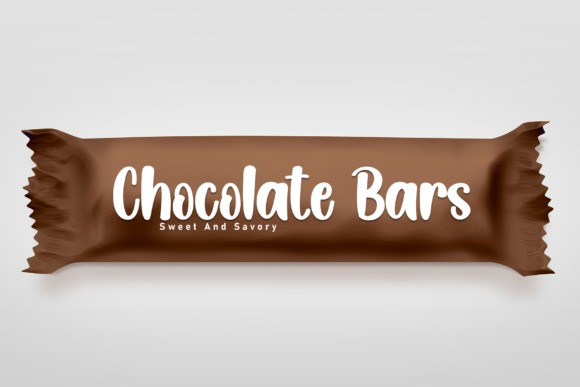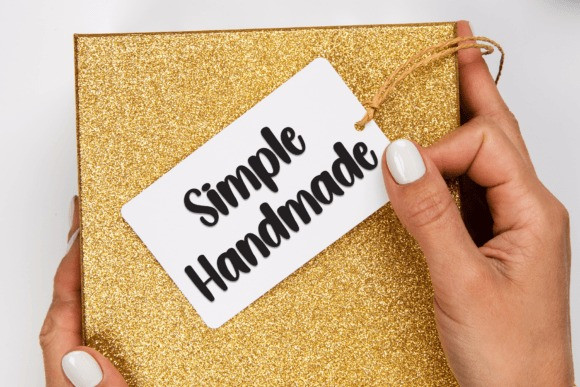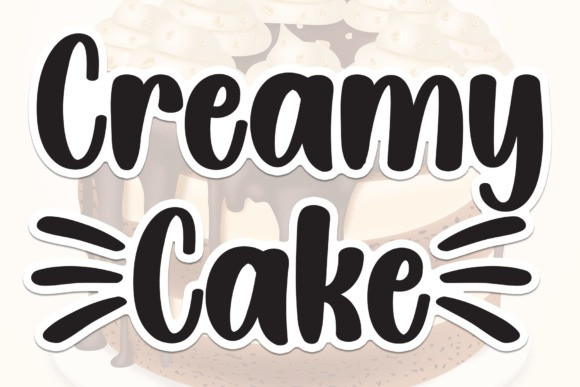
Creamy Cake Font
Creamy Cake Font is a sweet and friendly handwritten font. Its natural and unique style makes it incredibly fitting to a large pool of designs. The only limit is your imagination!